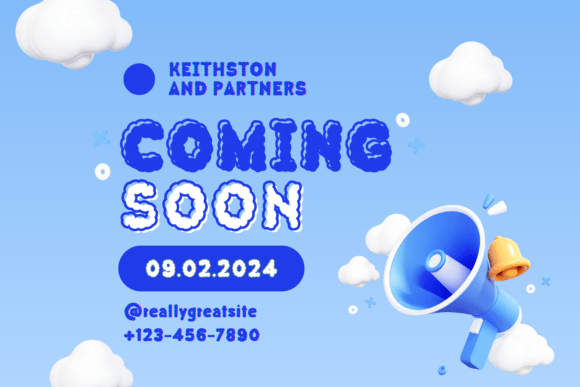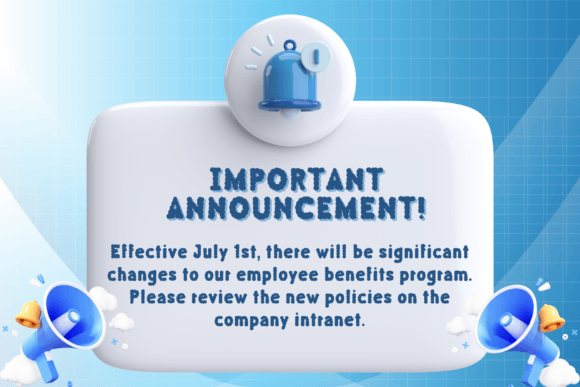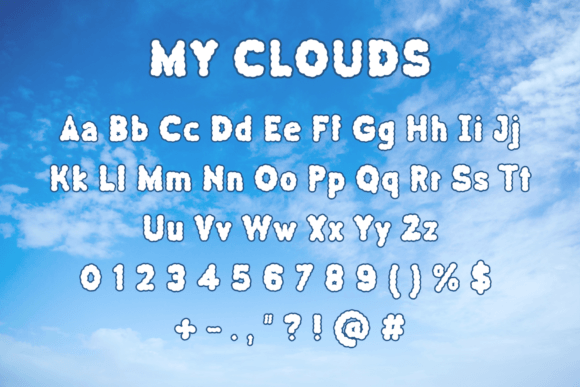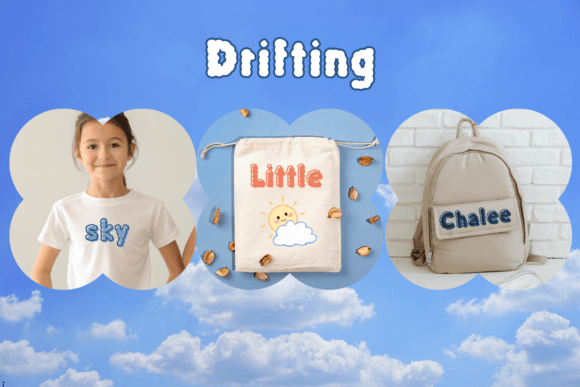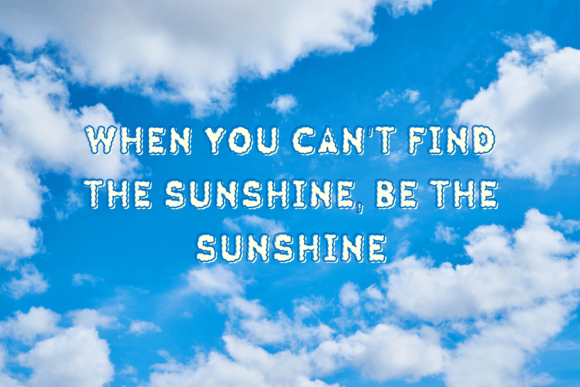
Introduction to My Clouds Font
As designers, we’ve all been there – staring at a blank canvas, trying to bring an idea to life. The moment of inspiration strikes, and suddenly, the possibilities are endless. For me, it was a lazy Sunday afternoon, watching the clouds drift lazily across the sky. Their soft, white peaks and ever-changing shapes sparked an idea that would become the foundation of a new font – My Clouds Font.
My Clouds Font is a unique design resource that captures the ethereal beauty of clouds. With a transparent background, this font is perfect for creative projects where a high-quality, customizable design element is needed. Whether you’re a graphic designer, digital artist, or simply a design enthusiast, My Clouds Font is a valuable addition to your toolkit. And the best part? It’s available for free download, making it an accessible design resource for all.
As a design resource, My Clouds Font offers endless possibilities for creative expression. Its versatility and high quality make it an ideal choice for a wide range of applications, from branding and marketing materials to digital art and creative projects. Whether you’re looking to add a touch of whimsy or a sense of sophistication, My Clouds Font is sure to deliver.
Key Features of My Clouds Font
- Unique, hand-drawn design with a transparent background, ideal for creative projects requiring a subtle, textured look.
- Includes a wide range of glyphs, including uppercase and lowercase letters, numbers, and punctuation marks, to cater to various creative needs.
- Perfect for use in digital design, such as social media graphics, blog posts, and marketing materials, where a unique, creative touch is desired.
Honest Review: My Clouds Font
I recently stumbled upon My Clouds Font while searching for a unique design resource for a creative project. As a designer, I’m always on the lookout for high-quality fonts that can help me add a touch of elegance to my work. Here’s my honest review of this font.
- ✨ Unique and creative design that sets it apart from other fonts.
- ✨ Comes with a transparent background, making it easy to customize and layer with other design elements.
- ✨ High quality, making it perfect for printing or digital use.
- ⚠️ Limited font sizes and styles, which may not be ideal for large-scale projects.
- ⚠️ Not suitable for corporate or formal designs, as it’s a more playful and creative font.
Overall, I’m impressed with My Clouds Font and would recommend it for designers working on creative projects. While it may have some limitations, its unique design and high quality make it a great addition to any design resource library.
Tips for Getting the Most Out of My Clouds Font
Experiment with different font sizes and colors to create a visually appealing design. Use My Clouds Font in conjunction with other design elements to create a cohesive look.
My Clouds Font is ideal for designing invitations, posters, and social media graphics. Its transparent background makes it perfect for overlaying on images or videos.